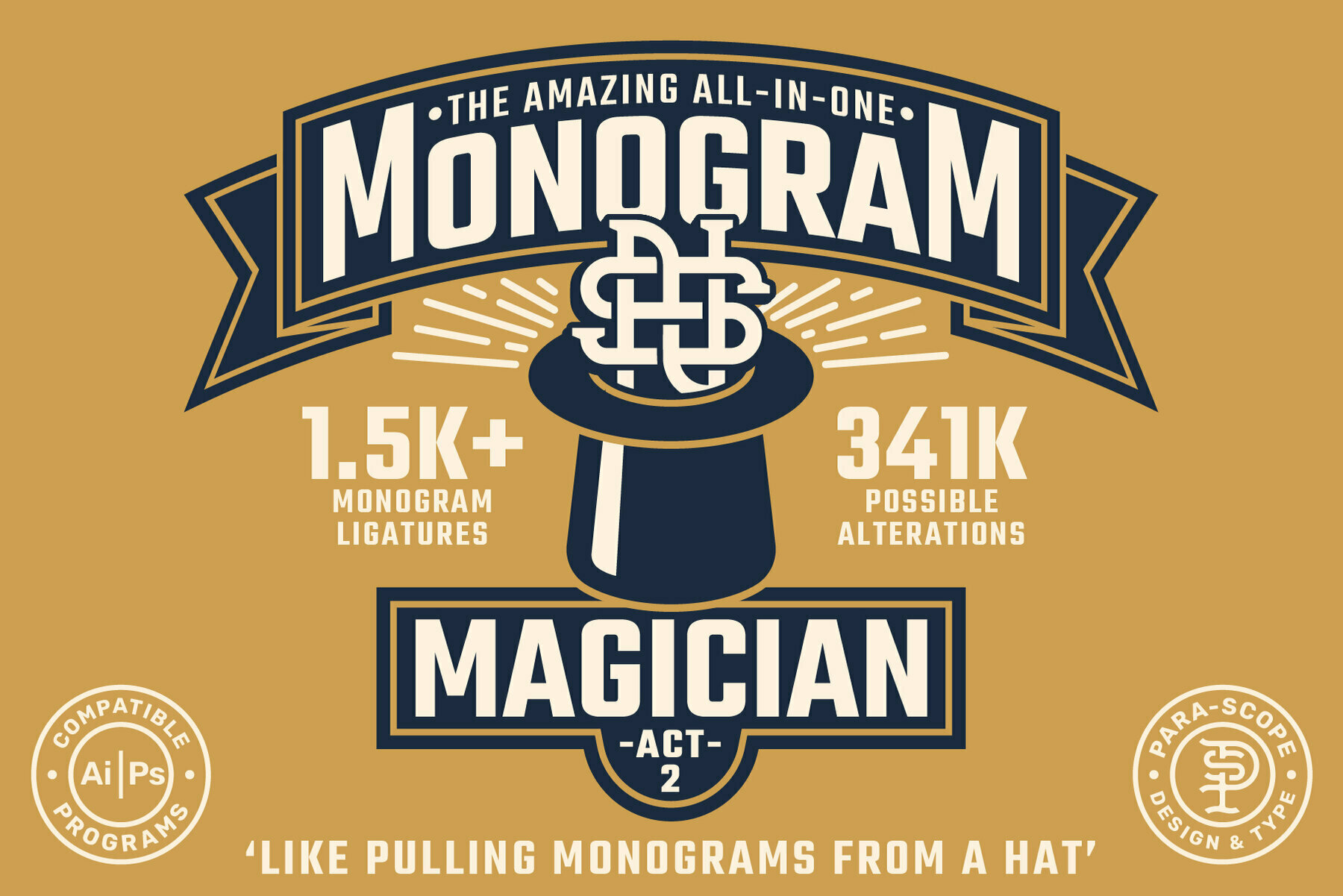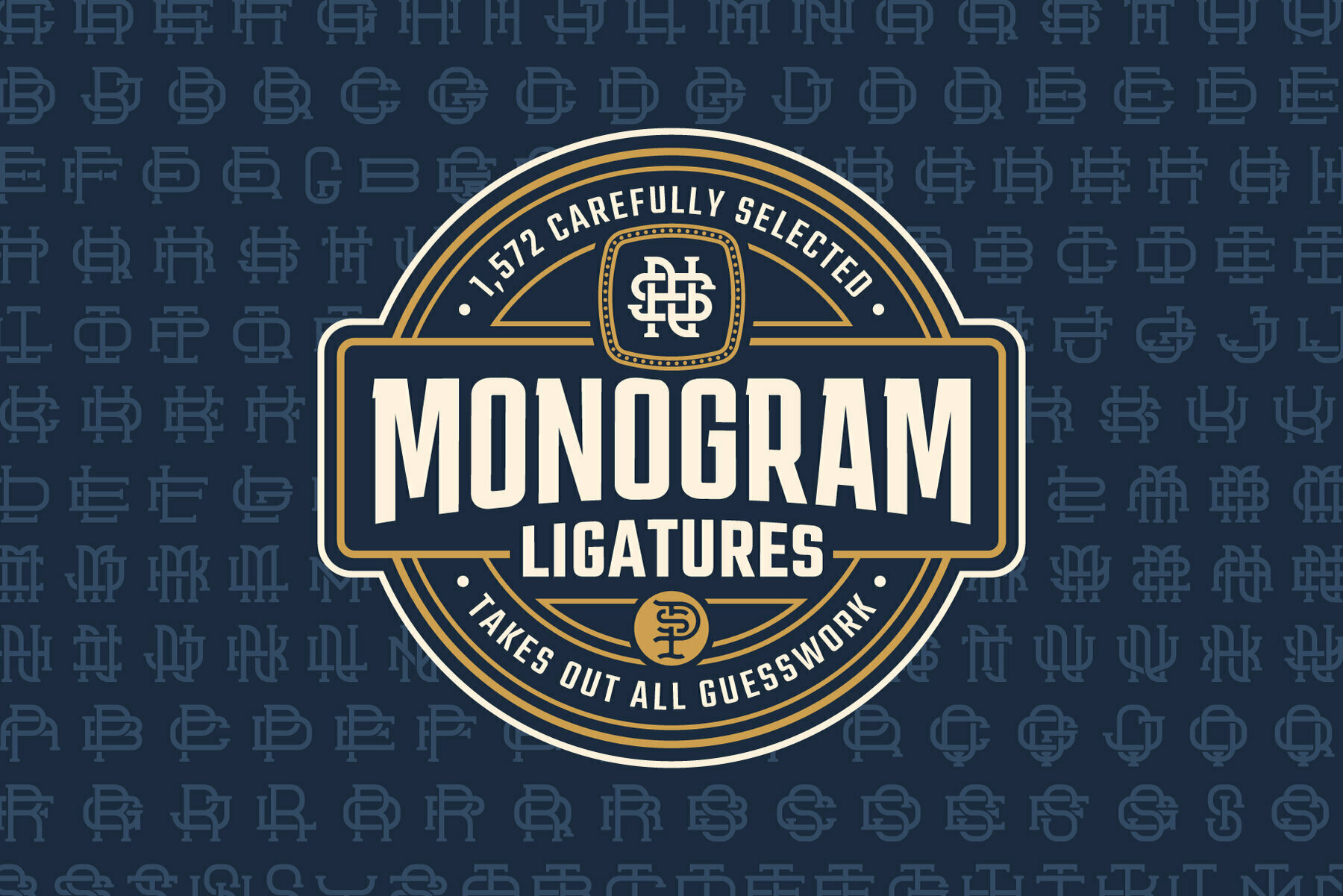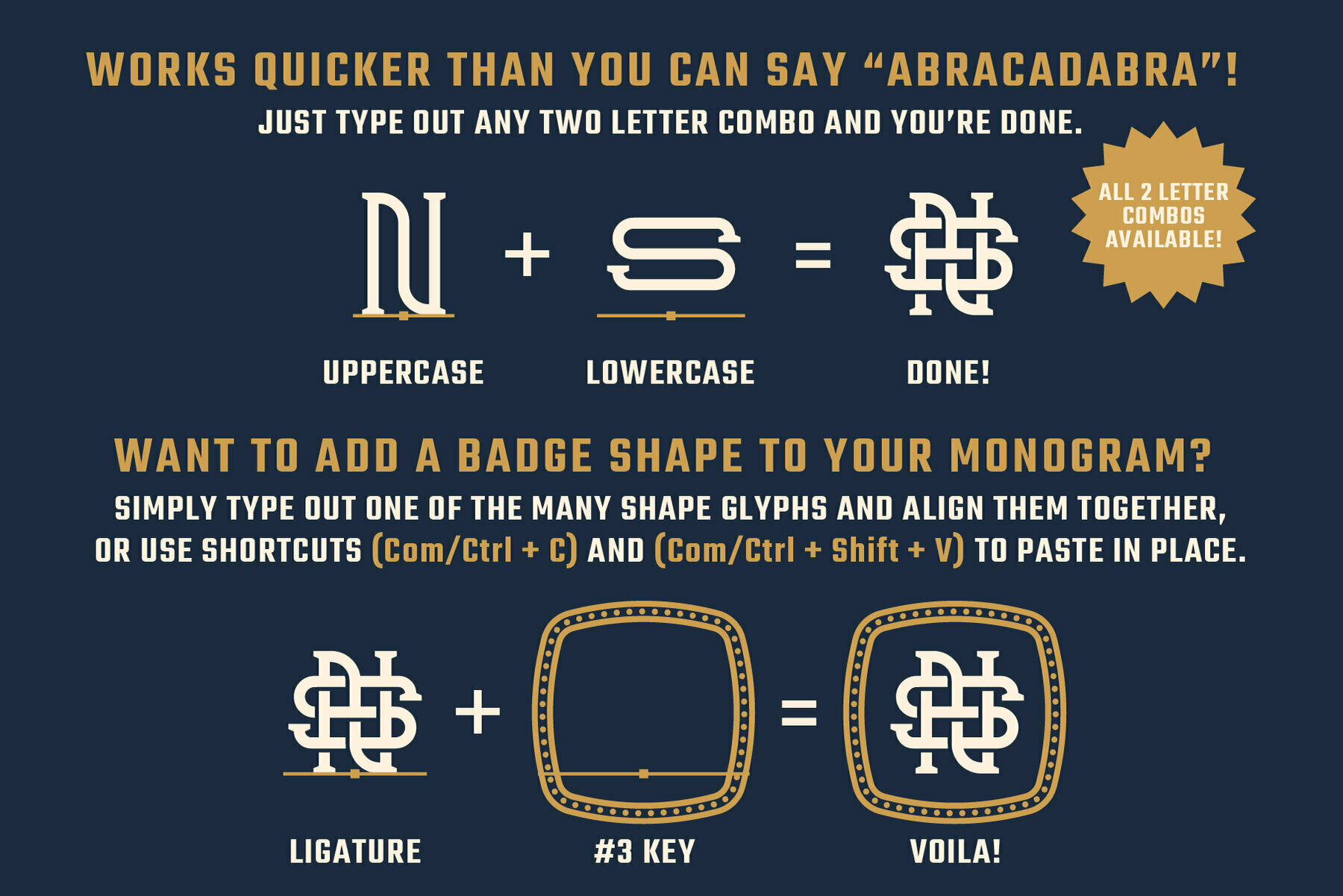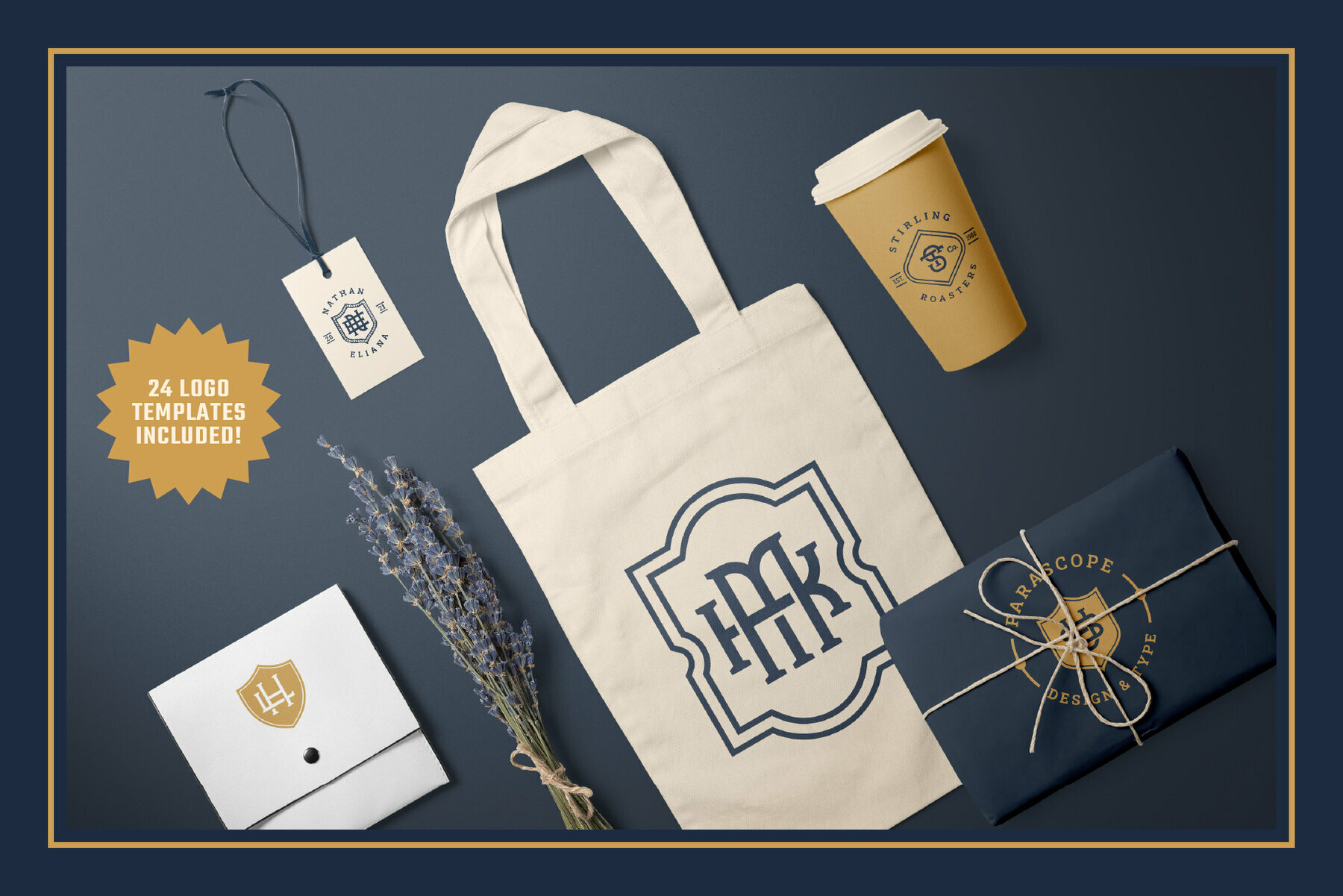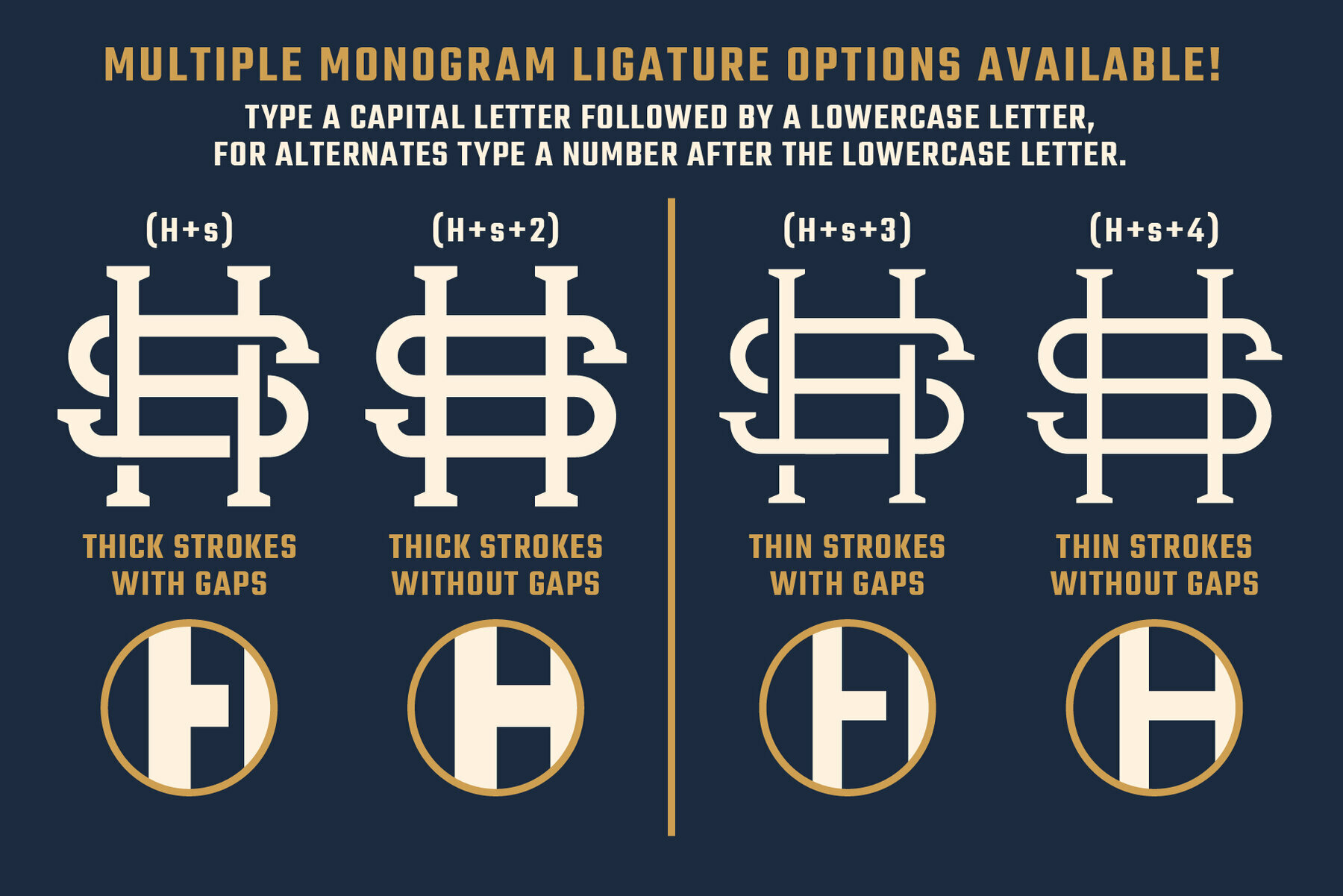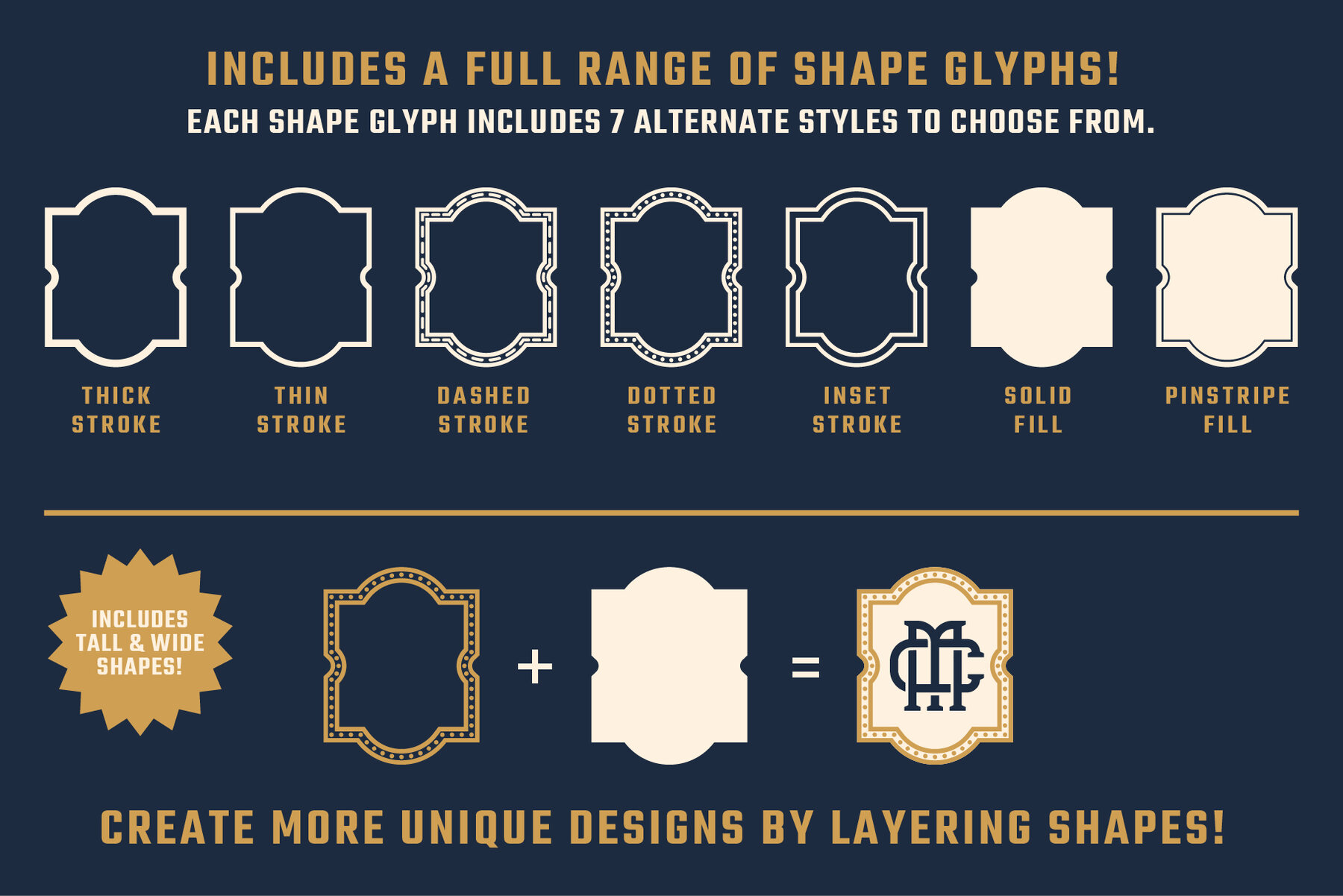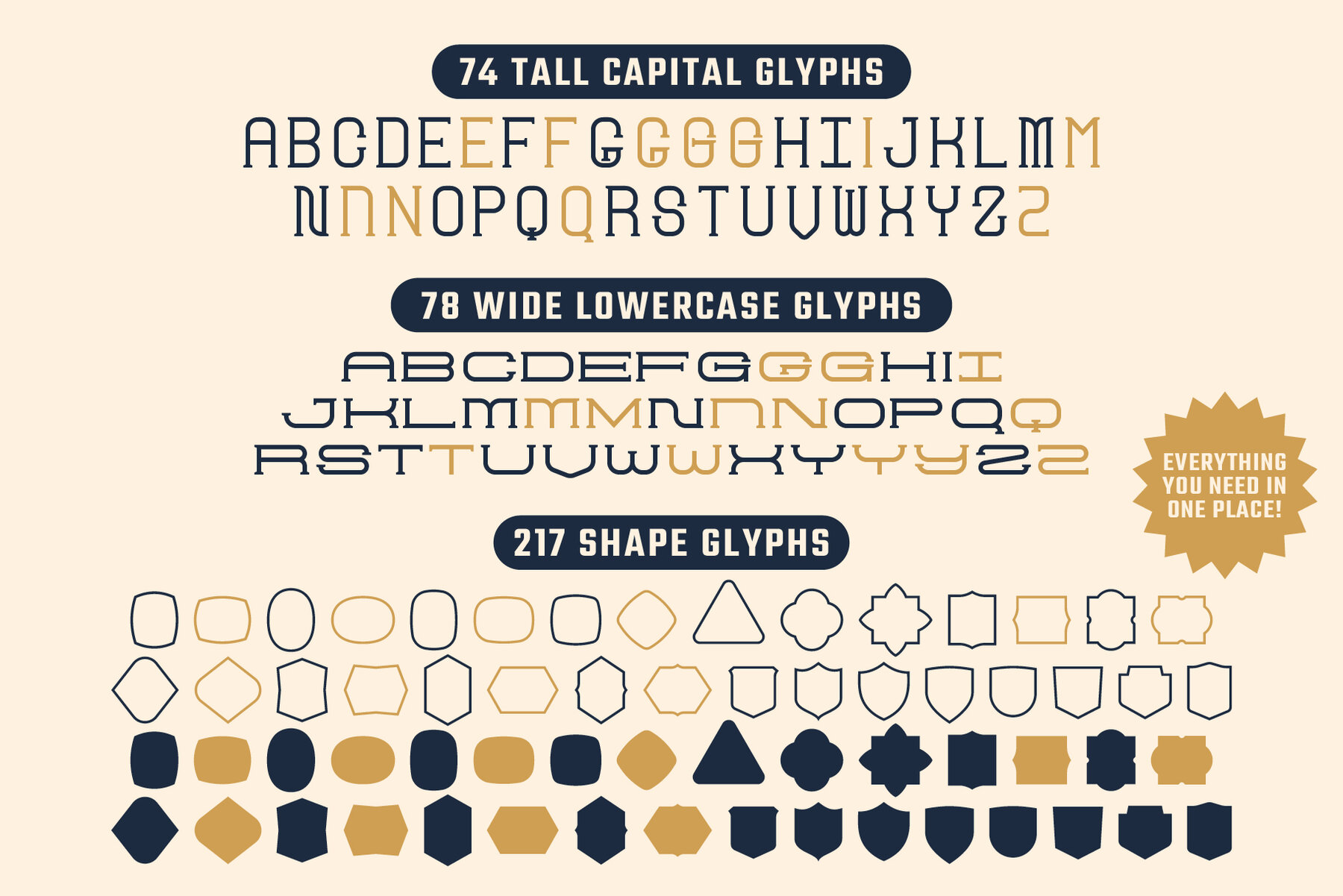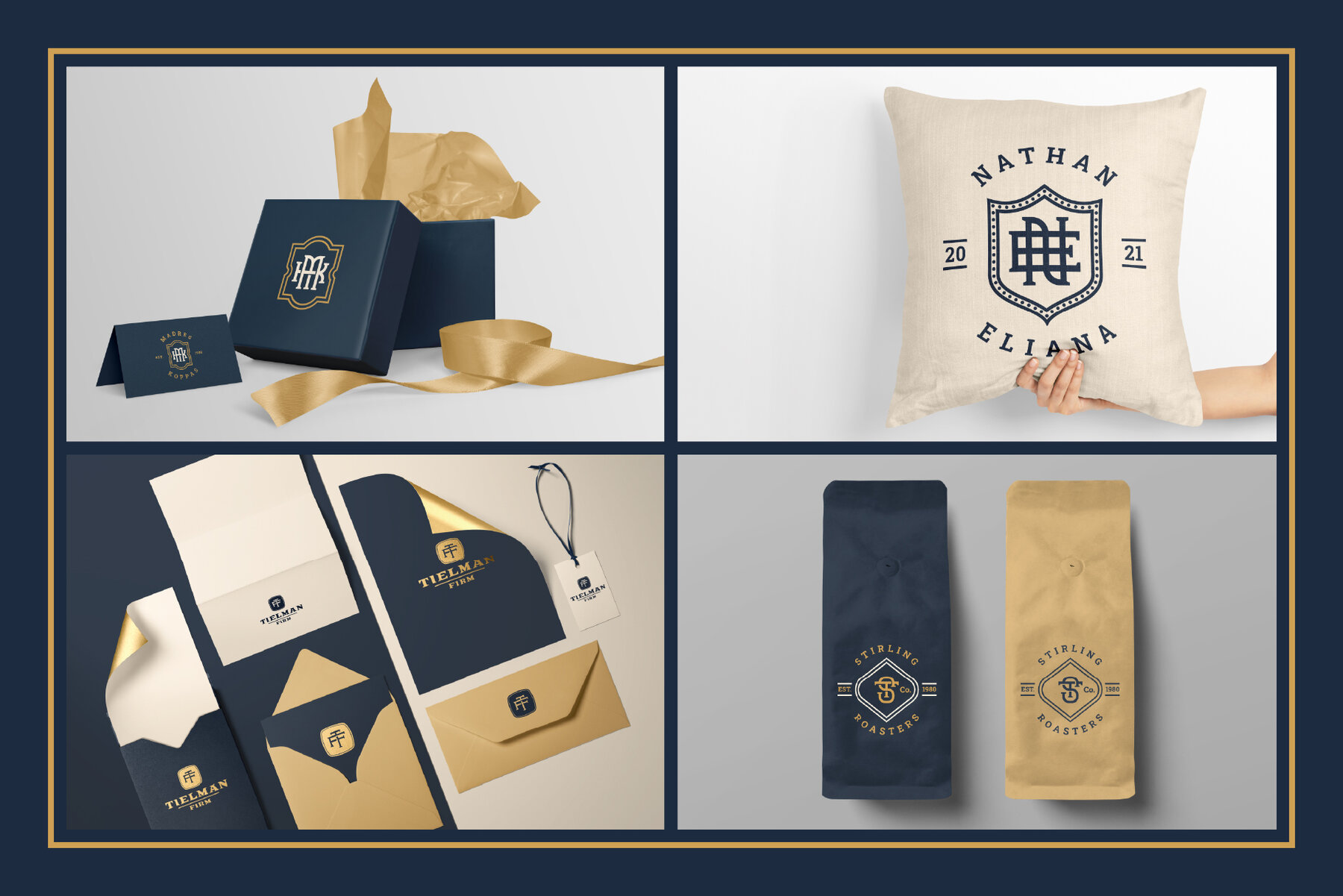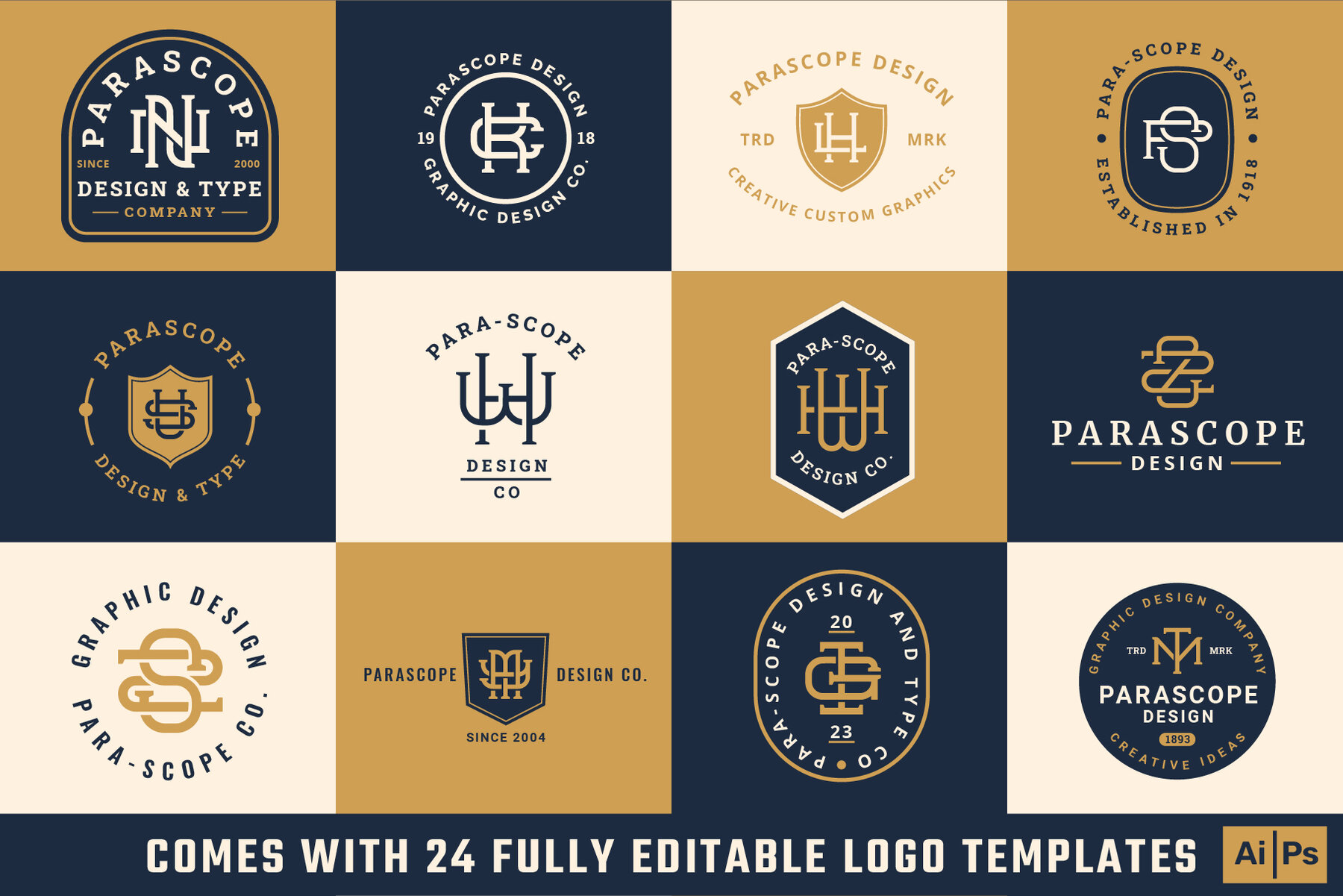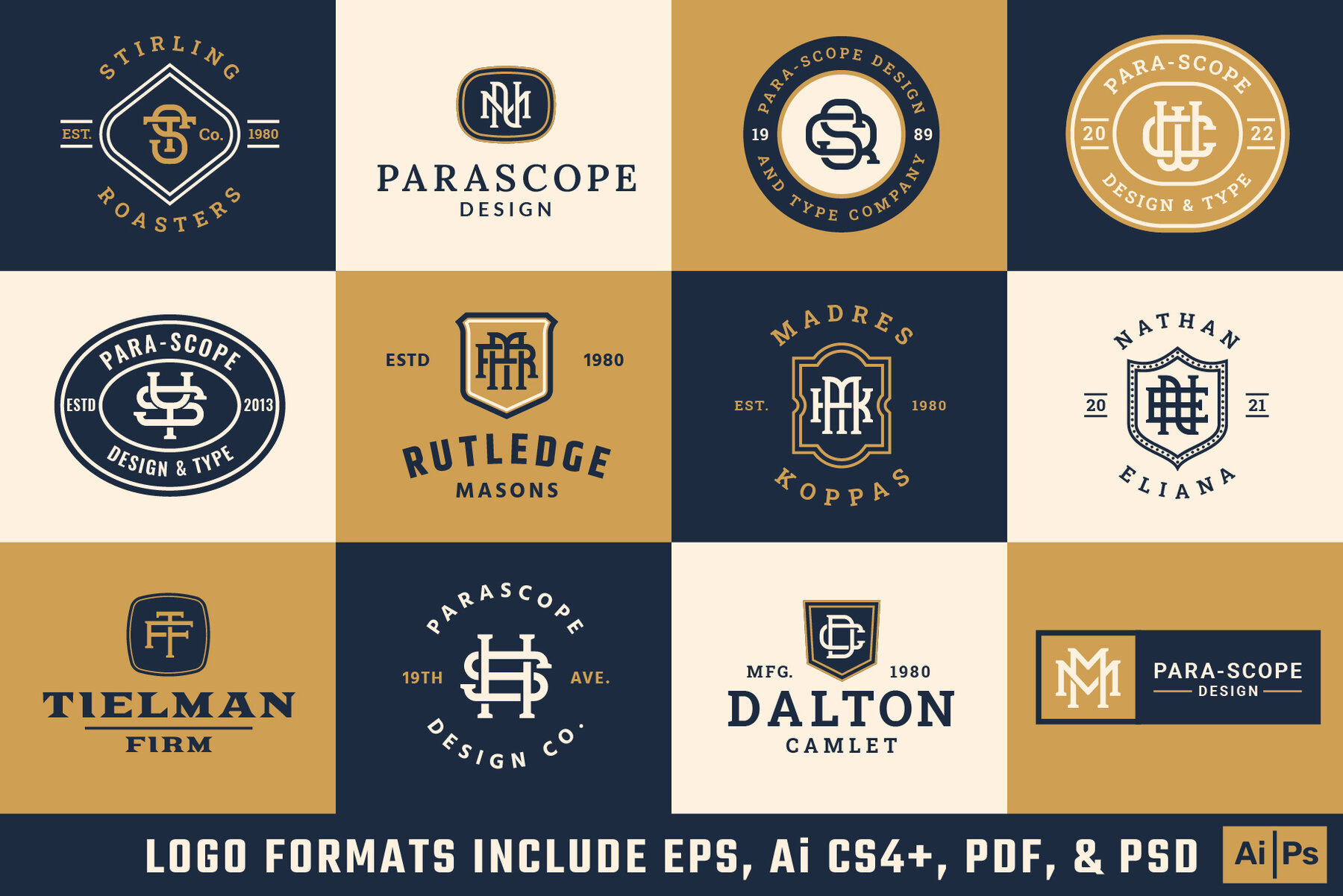
MONOGRAM MAGICIAN - ACT 2
Introducing the second act of Monogram Magician. Making monograms just got much quicker and easier. You won’t need any magic school training to start pulling monograms out of hats in seconds rather than minutes.
Simply type out any two-letter combo starting with an uppercase letter followed by a lowercase letter, and “Shazam!” you’ve got a monogram. Give it a try in the text preview window above! Please note that some letter combos may need to be reversed in order to work, for example if Ps won't work try Sp instead. Want to add a shape to your monogram then just type one out using any of the symbol or number keys on your keyboard. Having everything you need in one place keeps you focused on creating rather than searching.
Countless hours were put into selecting the best ligature combinations for any possible two letters combination you could want so you don’t have to waste any time figuring it out yourself. Monogram Magician Act 2 includes 1,572 pre-designed monogram ligatures to choose from plus another 217 Shape Glyphs.